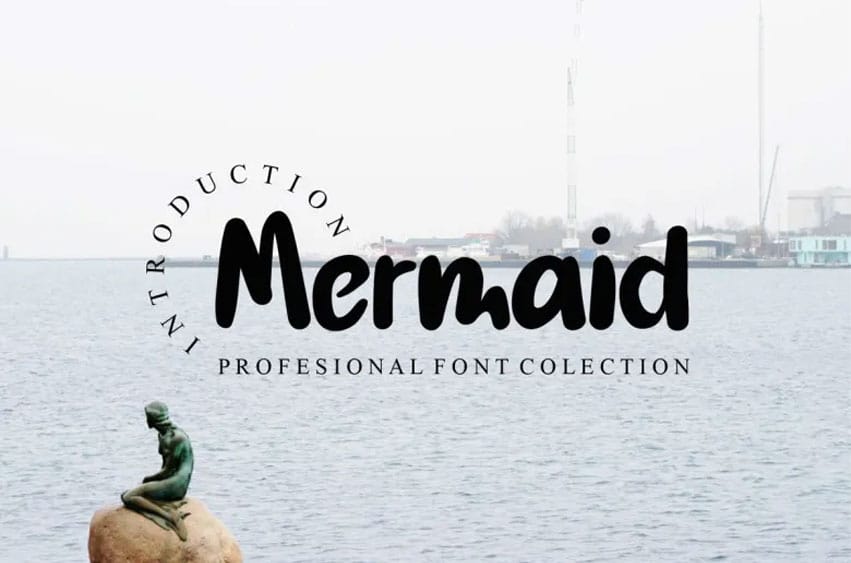
Mermaid Font bold Handwritten Font is a unique and beautiful script font that has been created just for you and your preferences and guarantees you an exciting journey with its beautiful accents and curves that are hidden in each letter.
Mermaid Fonts are perfect for any hand-written text for weddings, fashion, logos, or social media advert display, packaging of products with designed labels, watermarked invitations, stationery, etc.